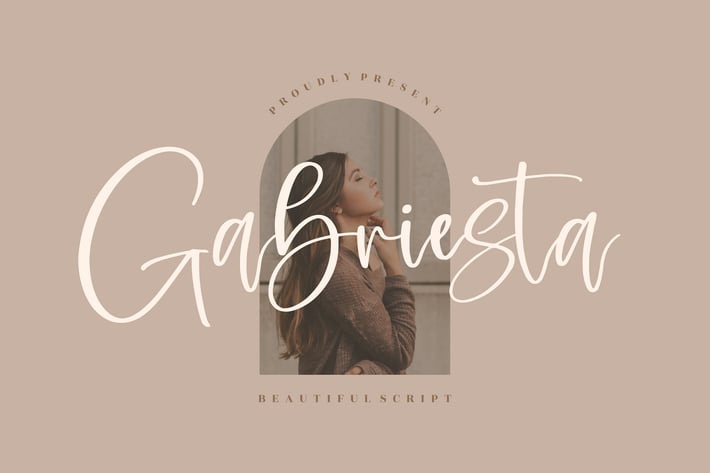
Gabriesta Script Font
Gabriesta Script Font is a graceful handwritten script with flowing curves and a stylish modern look. Its elegant and natural feel makes it a versatile typeface for projects that require beauty, sophistication, and a personal touch.
+ Handwritten script style with smooth flowing strokes
+ Includes Regular & Italic styles
+ Branding & logo design
+ Wedding invitations & stationery
+ Social media graphics & lifestyle posts
+ Posters & promotional designs
+ Editorial & fashion projects
Add a touch of timeless beauty to your work with Gabriesta – the script font that combines elegance and modern charm.